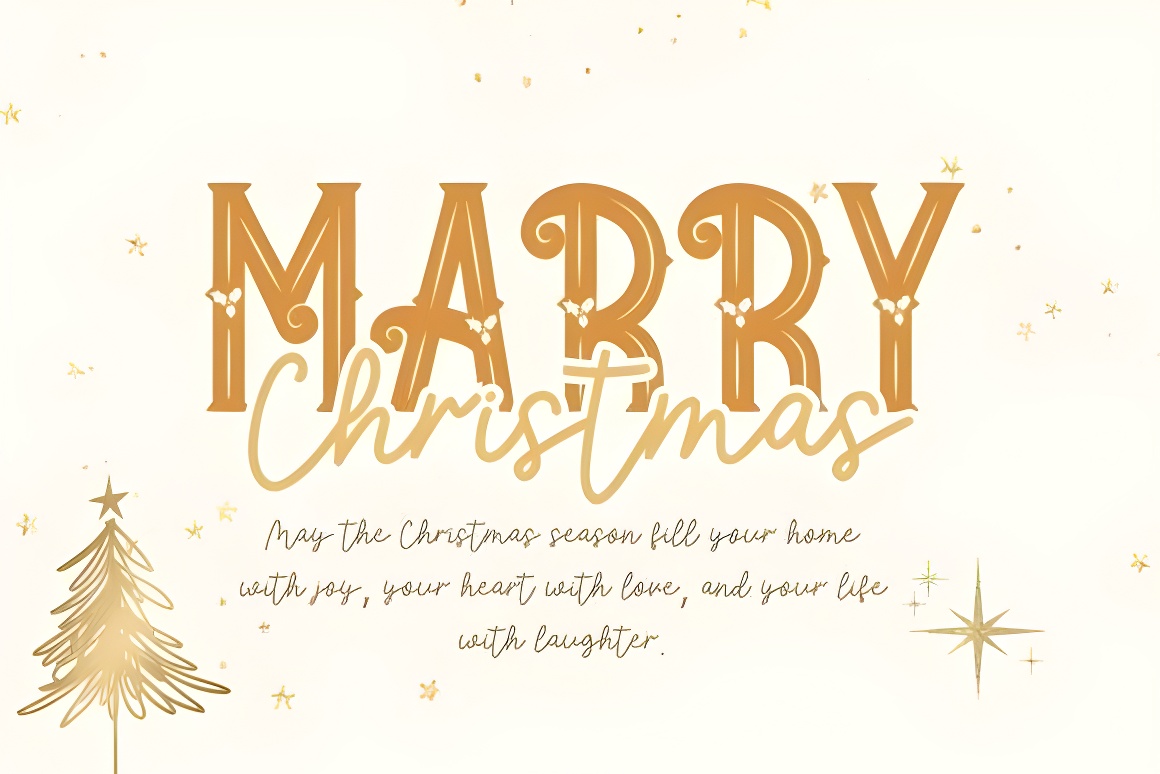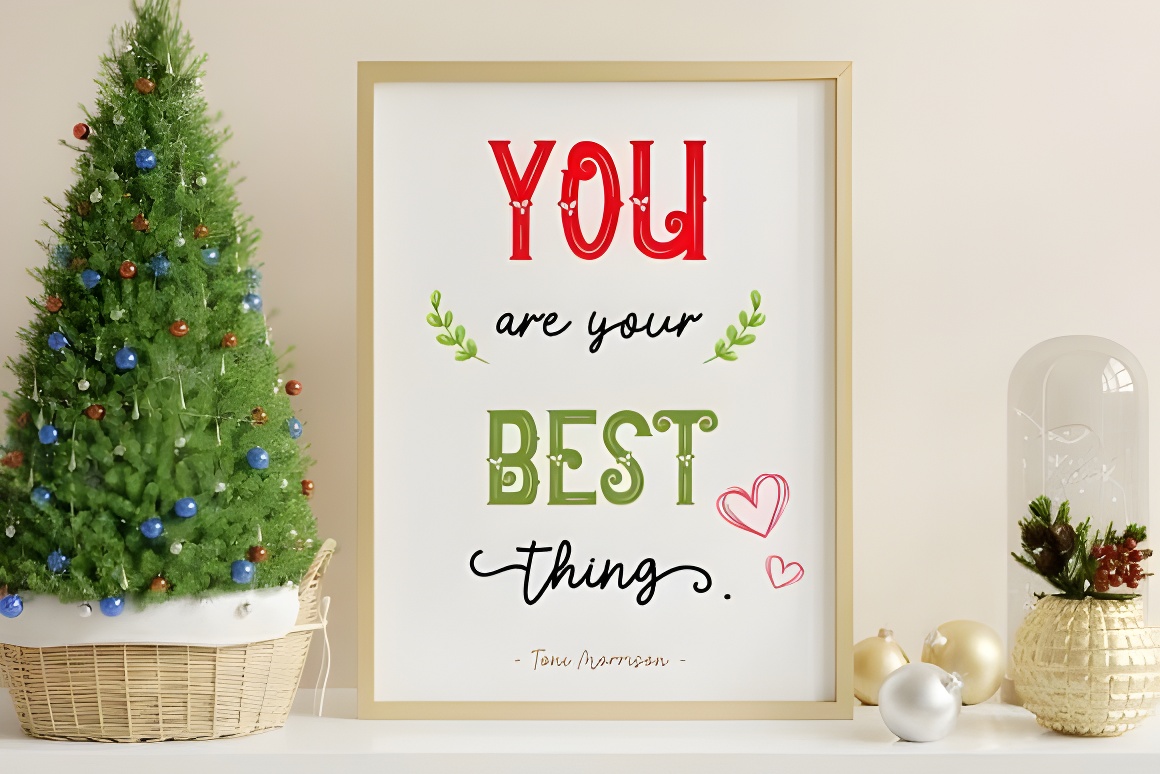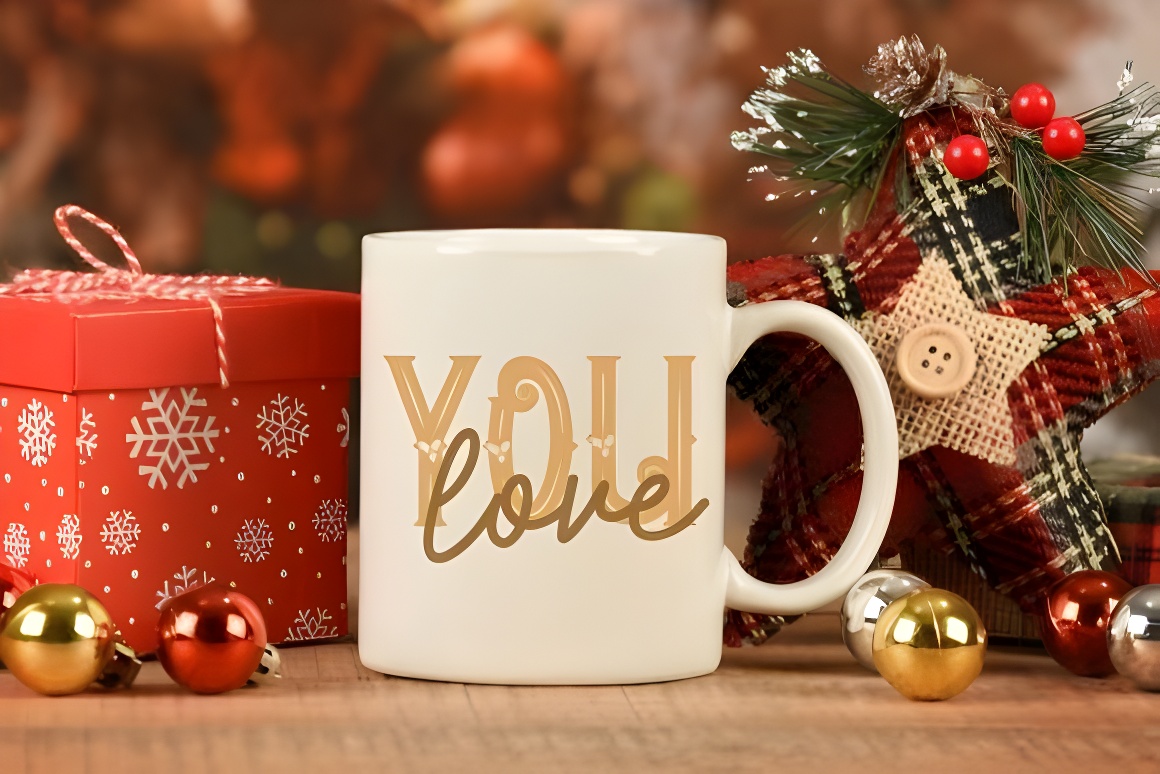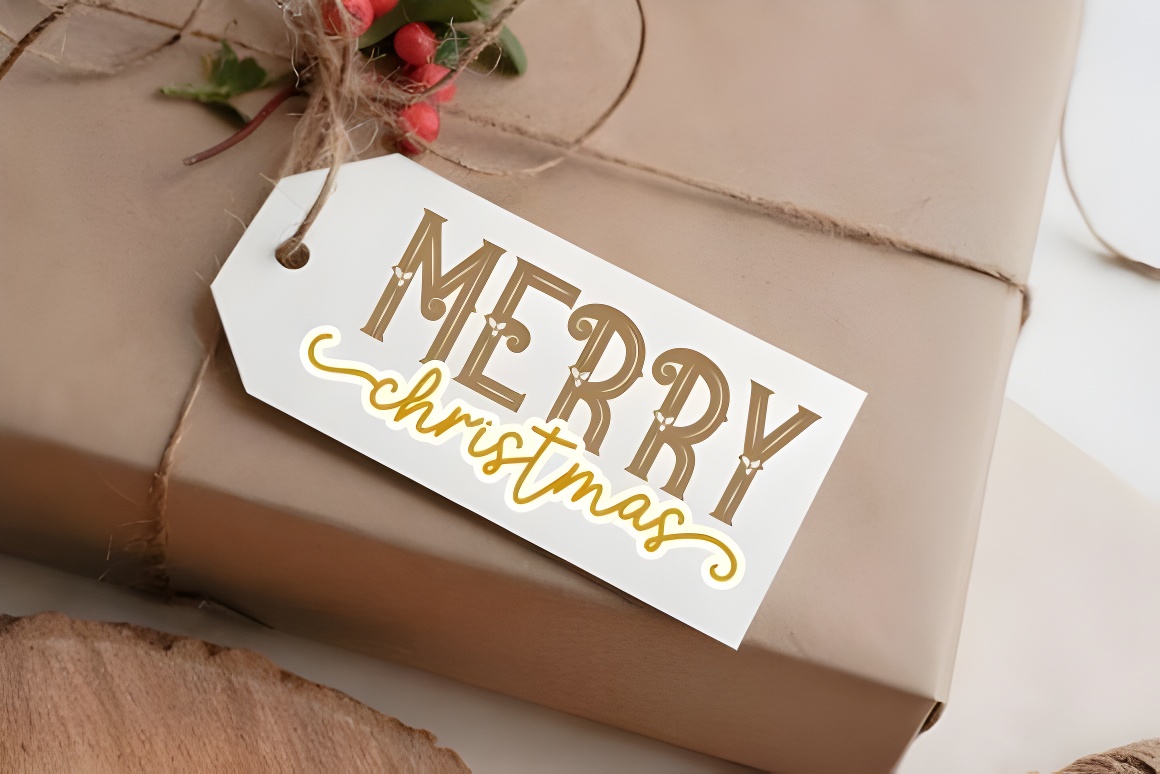
Christmas Holiday Duo Font Bundle - Script & Decorative Pair
Create stunning Christmas designs with this font duo! Features a bold decorative font for headers and an elegant script with curled tails. Perfect for holiday cards, invitations, and typography projects.